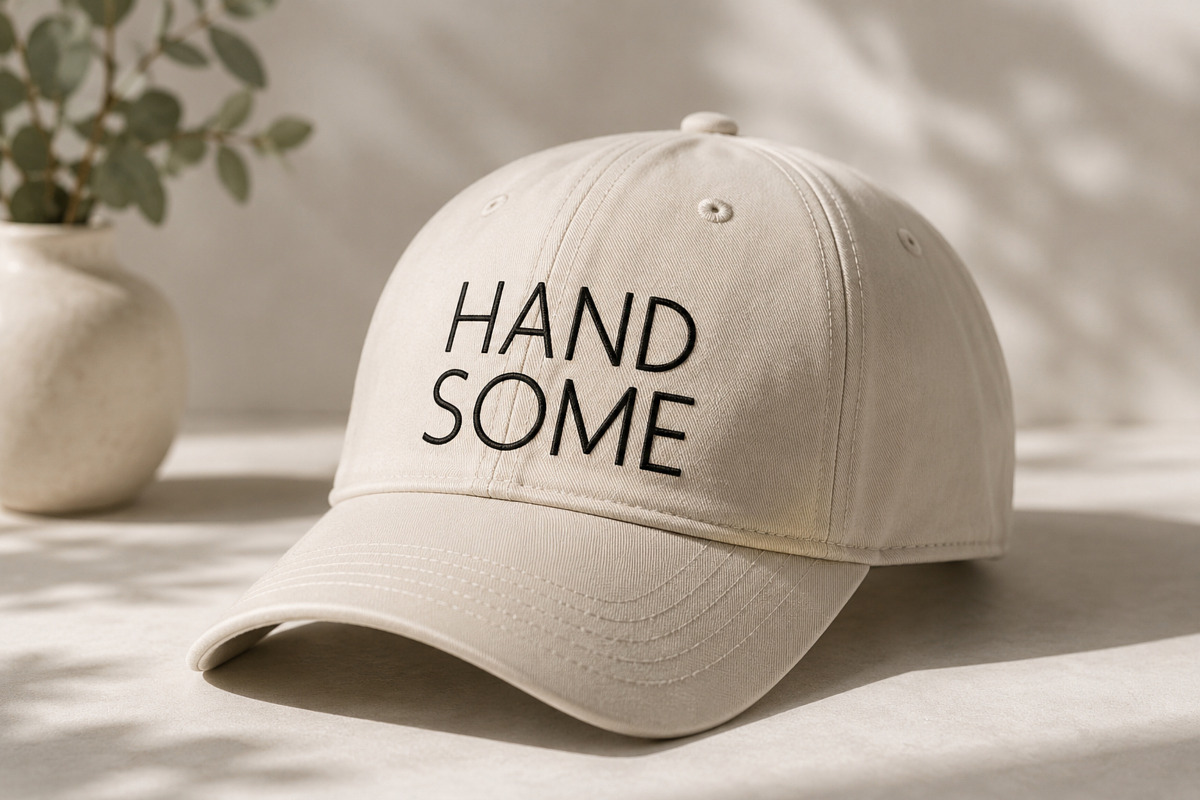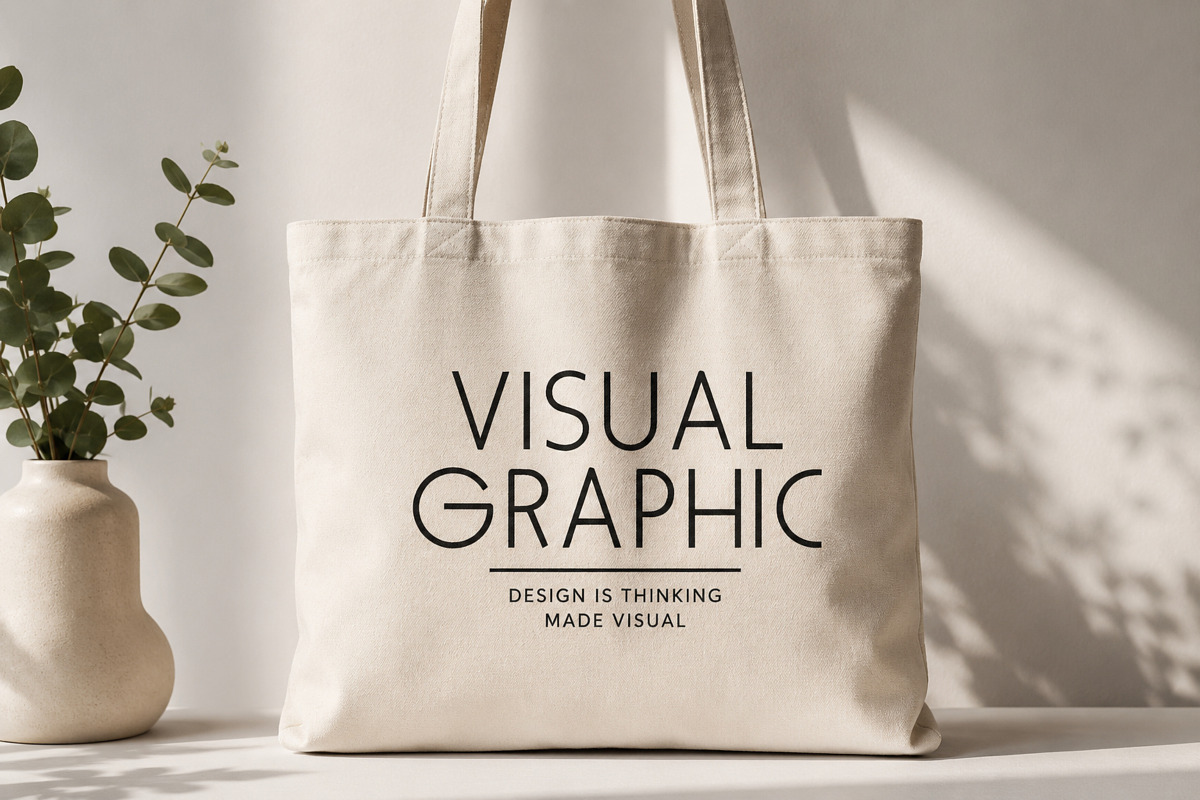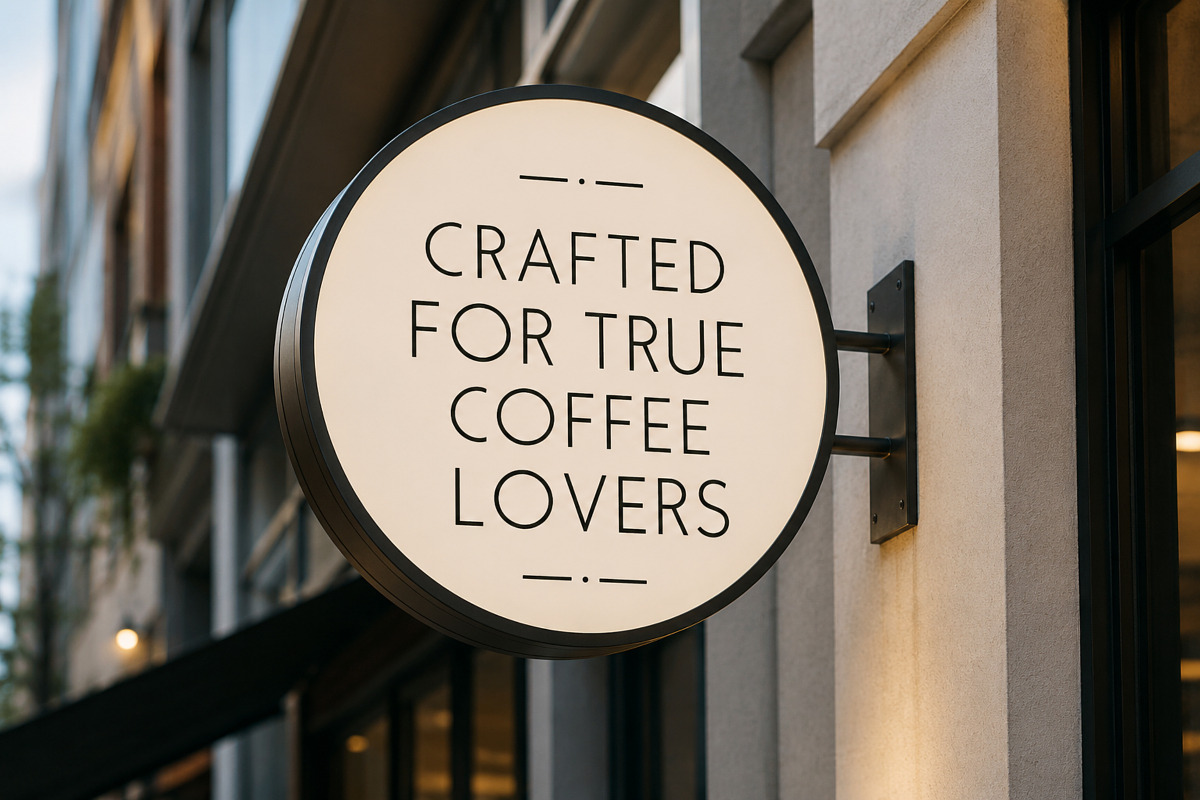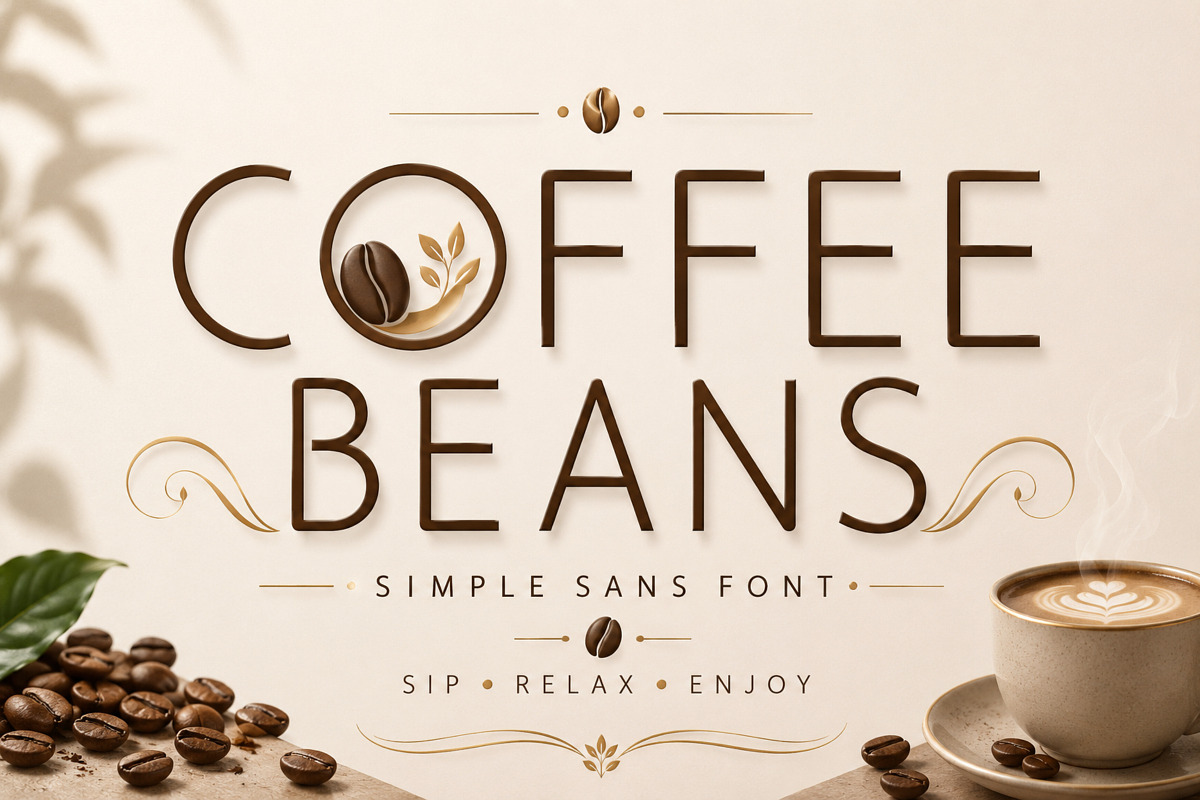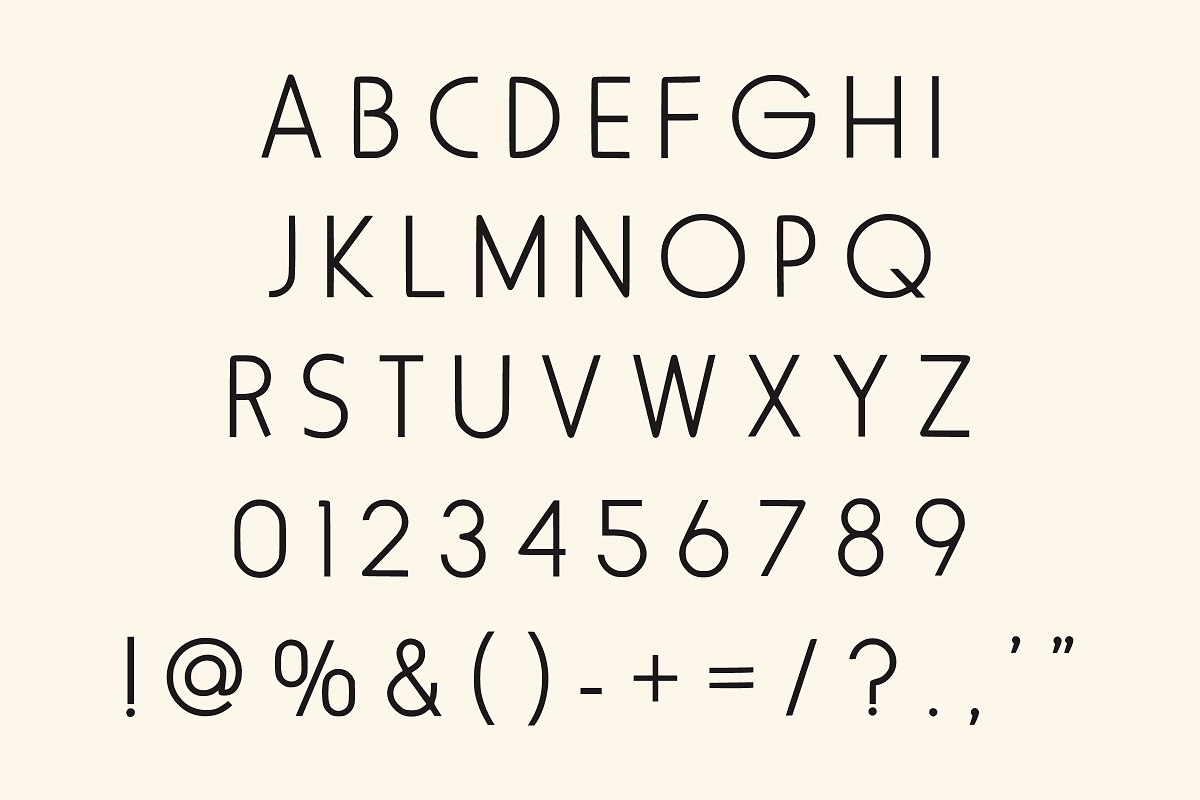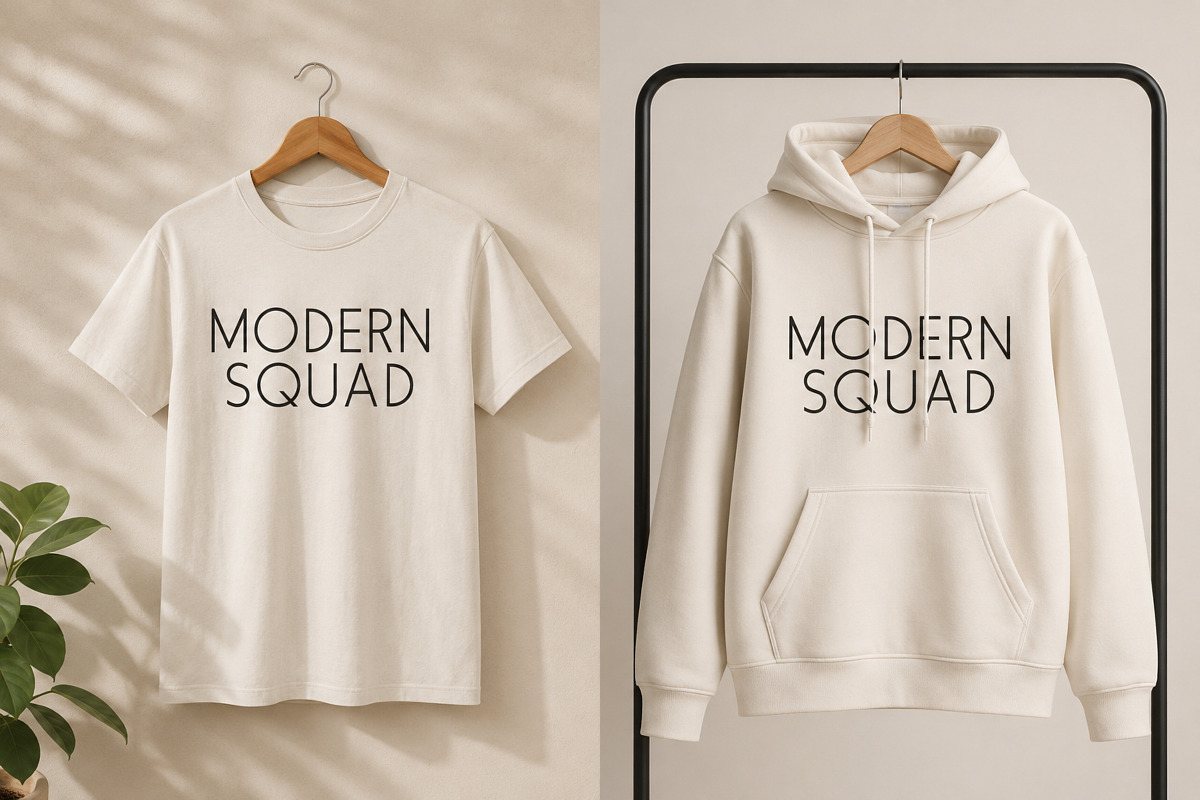
Coffee Beans – Elegant Minimal Sans
Introducing Coffee Beans, a sophisticated modern sans serif font crafted with clean lines, minimalist proportions, and timeless elegance. Inspired by the warm atmosphere of artisan coffee shops, this font delivers a premium look that is perfect for branding, packaging, logos, cafés, restaurants, and lifestyle businesses.
Its refined letterforms create a luxurious yet approachable appearance, making it an excellent choice for both digital and print projects. Whether you're designing coffee packaging, café menus, product labels, website headers, editorial layouts, or social media branding, Coffee Beans provides a sleek, professional aesthetic that never goes out of style.
Designed for versatility, this font combines modern simplicity with a warm organic feel, helping your designs stand out with elegance and clarity.
Coffee Shop Branding
Café Logos
Restaurant Menus
Coffee Labels
Product Branding
Luxury Branding
Cosmetics Packaging
Editorial Design
Magazine Covers
Social Media Posts
Website Headers
Advertising
Business Cards
Wedding Stationery
Home Décor
Lifestyle Branding
Premium Merchandise